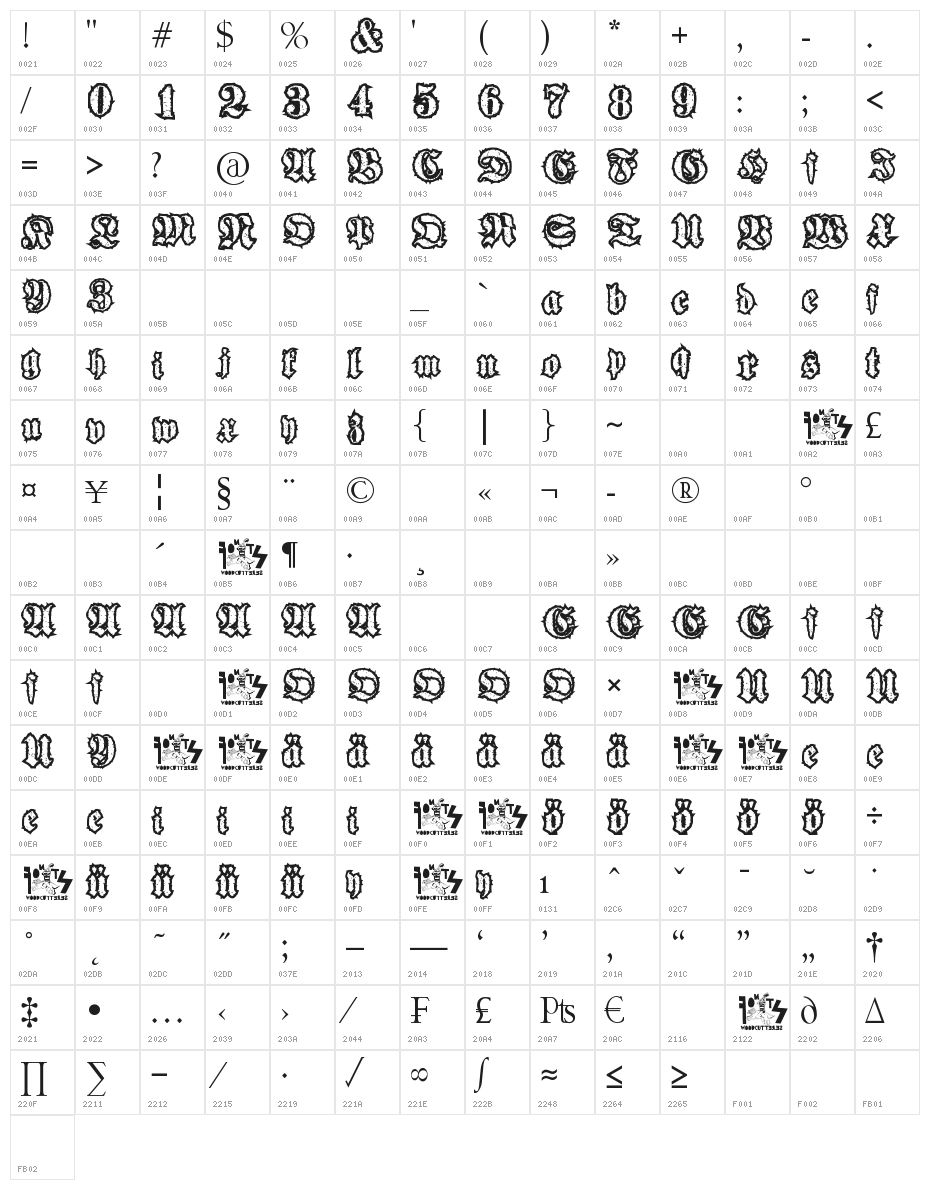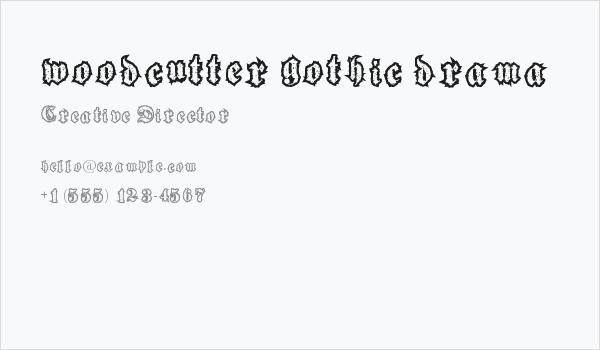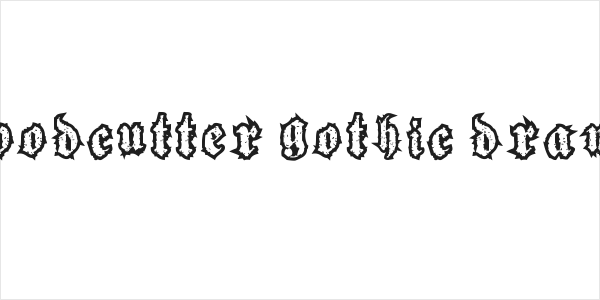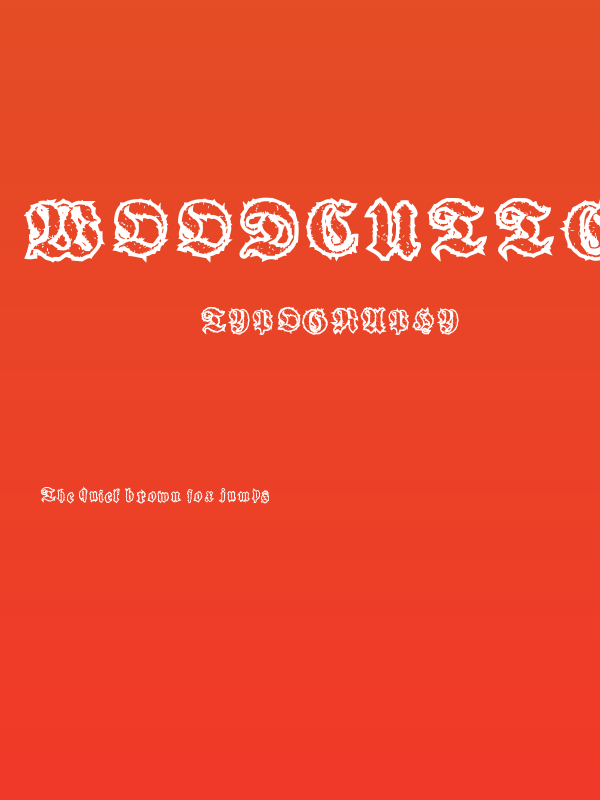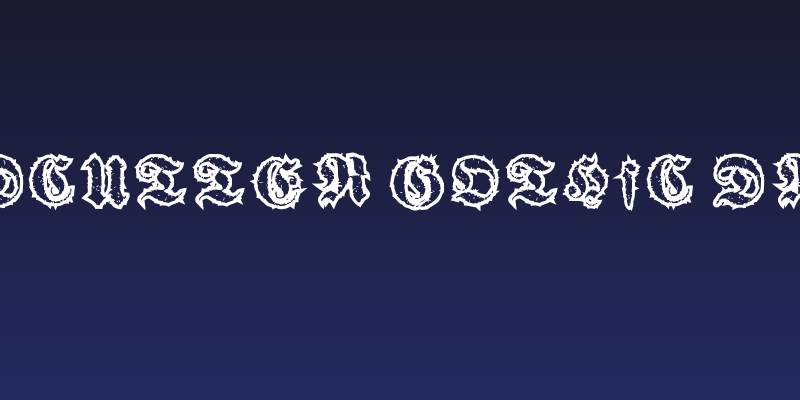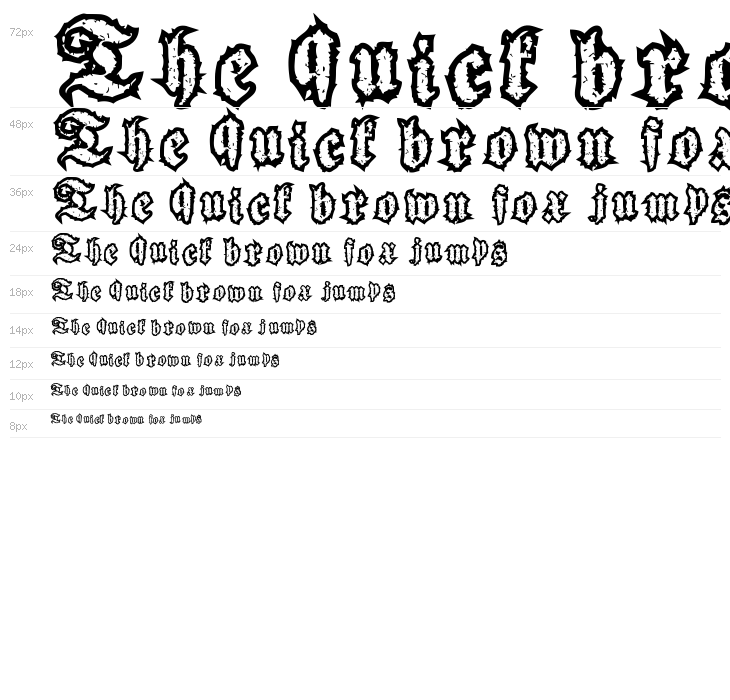
woodcutter gothic drama Font
woodcutter gothic drama Description
This font features a dramatic and intricate design, reminiscent of Gothic architecture with its sharp, angular edges and ornate detailing. The characters are bold and heavily stylized, with a distinct medieval flair that evokes a sense of mystery and antiquity. Each letter is adorned with decorative elements that enhance its visual impact, making it ideal for projects that require a touch of historical or fantasy-themed aesthetics. The numbers and special characters maintain the same elaborate style, ensuring consistency across all text elements.
| Proposed Projects | Ideal for fantasy book covers, historical event posters, themed invitations, and video game graphics. |